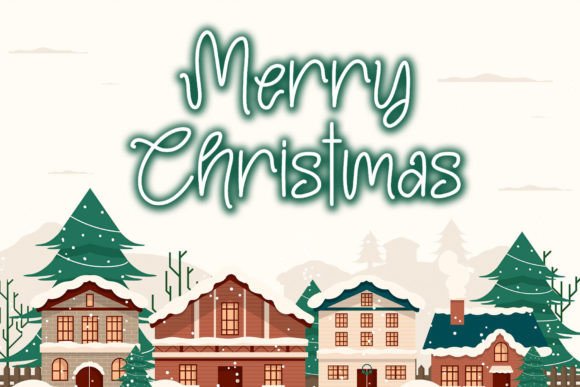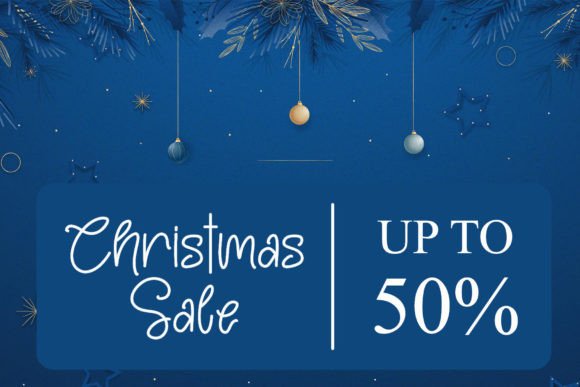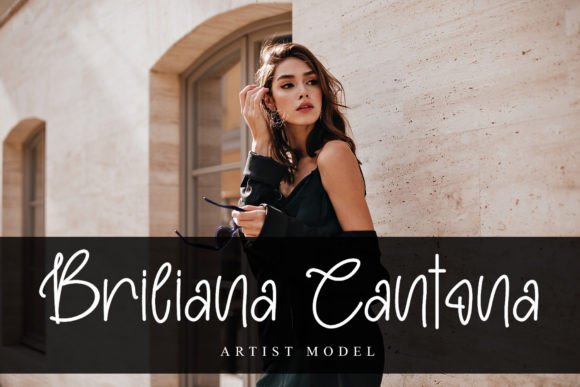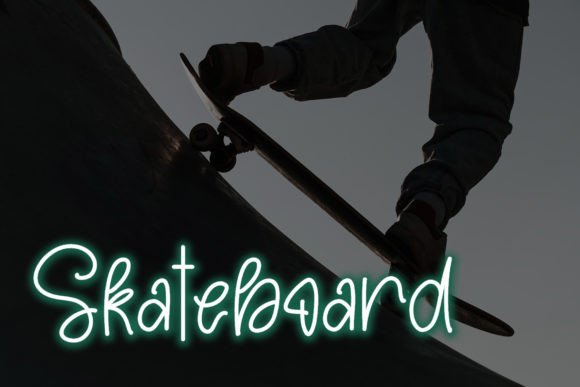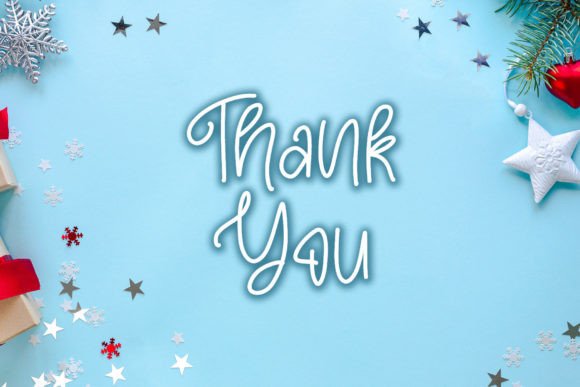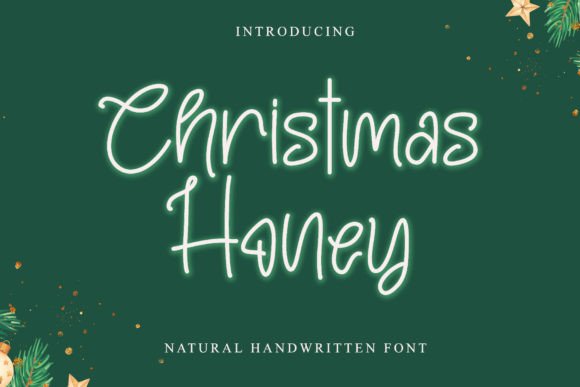
Introducing Christmas Honey Font: The Perfect Addition to Your Design Projects
Are you looking for a font that can add a touch of fun and friendliness to your design projects? Look no further than Christmas Honey Font! This simple, thin lettered, and flowing handwritten font is perfect for a variety of design ideas and is sure to make your projects stand out.
What is Christmas Honey Font?
Christmas Honey Font is a beautiful, handwritten font that features a simple and elegant design. The font is characterized by its thin letters and flowing lines, which give it a friendly and approachable feel. The font is highly adaptable and can be used on a wide range of design projects, from holiday cards and decorations to branding and marketing materials.
Key Features of Christmas Honey Font
- Simple and Elegant Design: Christmas Honey Font features a simple and elegant design that is perfect for a variety of design projects.
- Thin Letters: The font’s thin letters give it a delicate and refined feel that is sure to add a touch of sophistication to your projects.
- Flowing Lines: The font’s flowing lines give it a friendly and approachable feel that is perfect for creating a warm and inviting atmosphere.
- Highly Adaptable: Christmas Honey Font is highly adaptable and can be used on a wide range of design projects, from holiday cards and decorations to branding and marketing materials.
Uses for Christmas Honey Font
Christmas Honey Font is a versatile font that can be used on a wide range of design projects. Here are just a few ideas to get you started:
- Holiday Cards and Decorations: Christmas Honey Font is perfect for creating holiday cards, gift tags, and decorations that are sure to add a touch of festive fun to your holiday season.
- Branding and Marketing Materials: The font’s friendly and approachable feel makes it perfect for use on branding and marketing materials, such as business cards, brochures, and flyers.
- Party Invitations and Decorations: Christmas Honey Font is also perfect for creating party invitations and decorations that are sure to add a touch of fun and whimsy to your party planning.
- DIY Projects: The font’s simple and elegant design makes it perfect for use on DIY projects, such as handmade crafts, scrapbooking, and journaling.
Why Choose Christmas Honey Font?
There are many reasons why Christmas Honey Font is the perfect choice for your design projects. Here are just a few:
- Unique and Eye-Catching: Christmas Honey Font is a unique and eye-catching font that is sure to make your projects stand out.
- Easy to Read: The font’s simple and elegant design makes it easy to read, even at small sizes.
- Versatile: Christmas Honey Font is a versatile font that can be used on a wide range of design projects.
- Fun and Friendly: The font’s friendly and approachable feel makes it perfect for creating a warm and inviting atmosphere.
Christmas Honey Font is a beautiful and versatile font that is perfect for a variety of design projects. Its simple and elegant design, thin letters, and flowing lines make it a great choice for adding a touch of fun and friendliness to your projects. Whether you’re a designer, crafter, or DIY enthusiast, Christmas Honey Font is sure to become a favorite in your font collection.